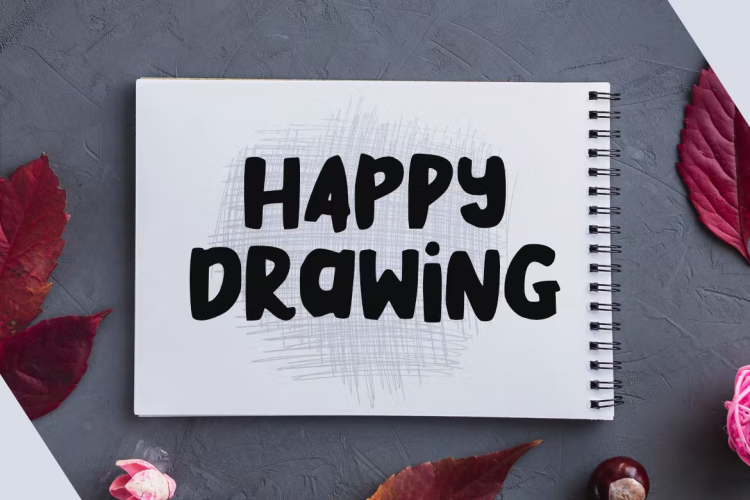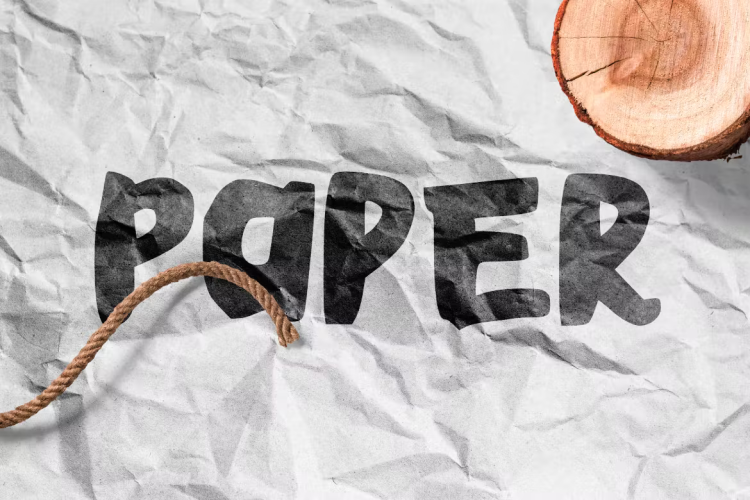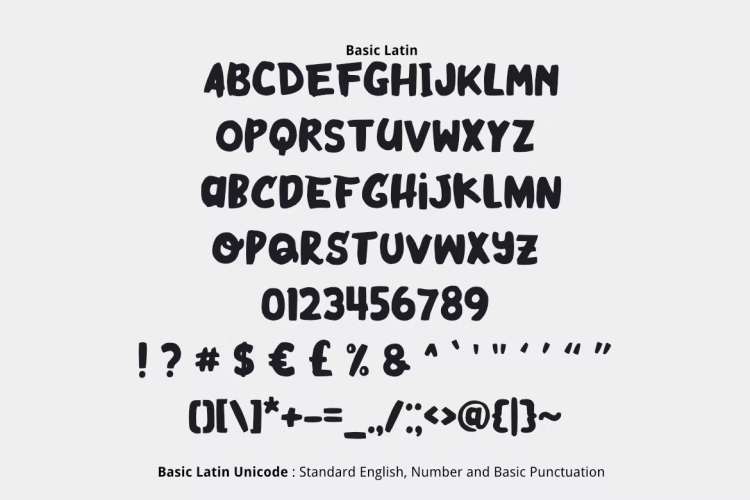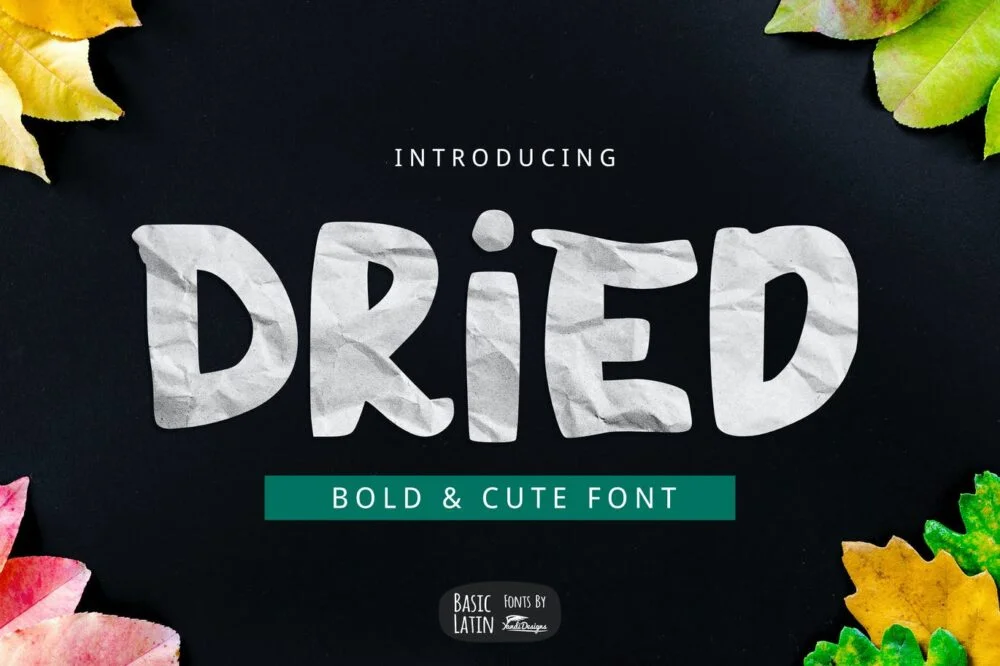
Dried Bold Font
Dried Bold Font Simple bold and cute multipurpose font, suitable for many project children book, quotes, logo, heading, title etc.
Where Dried Bold Font works best
A short phrase in Dried Bold Font carries warmth that a typeset sans cannot fake; keep the rest of the card plain.
Chalkboard-style headings in Dried Bold Font make a menu feel hand-made. Keep the dish descriptions in a simple face so prices stay readable.
One line of Dried Bold Font over a photo is enough; the script carries the tone and the caption does the work.
What kind of work does Dried Bold Font suit?
It sits in the Script And Handwritten group and reads as bold, branding, handwritten, kids. That makes it a candidate wherever those qualities help: headings, packaging, social graphics and brand work. Set it at the size you plan to use before deciding.